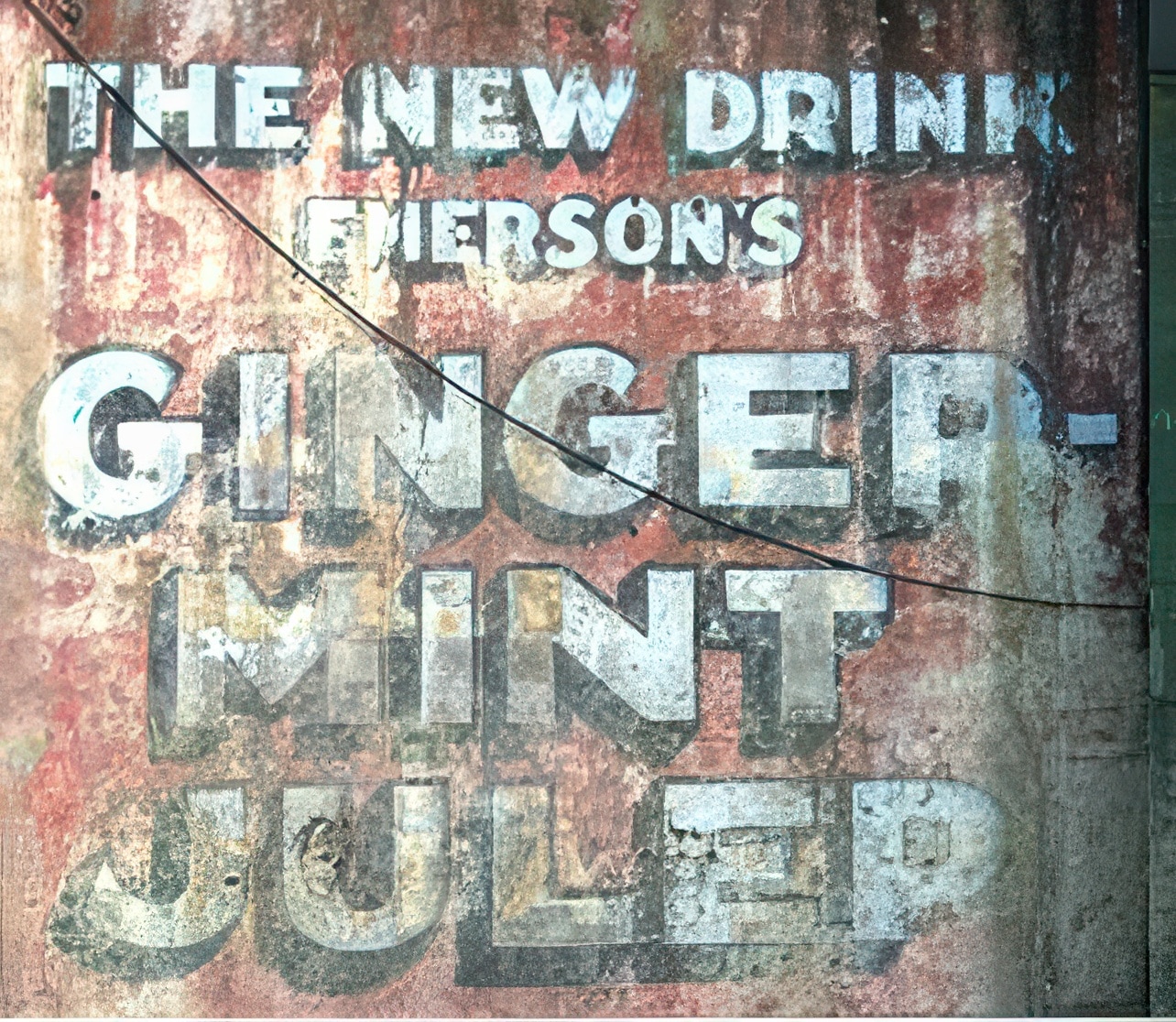
A two style typeface with a 3D-Shadow and a fill based upon a signage painted on a wall somewhere in the streets…
And if you ask, what is a Ginger Mint Julep? It’s a zesty, refreshing twist on the classic Kentucky Derby cocktail, incorporating ginger liqueur or syrup for a spicy kick.